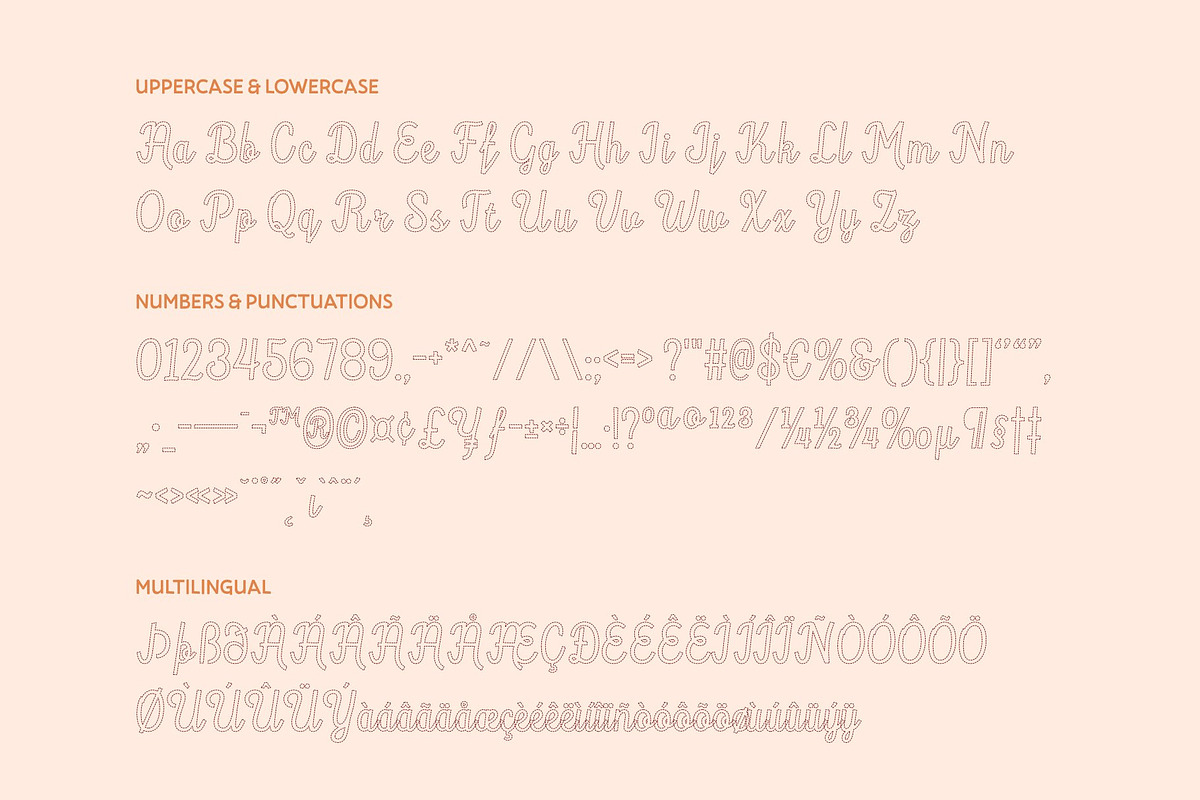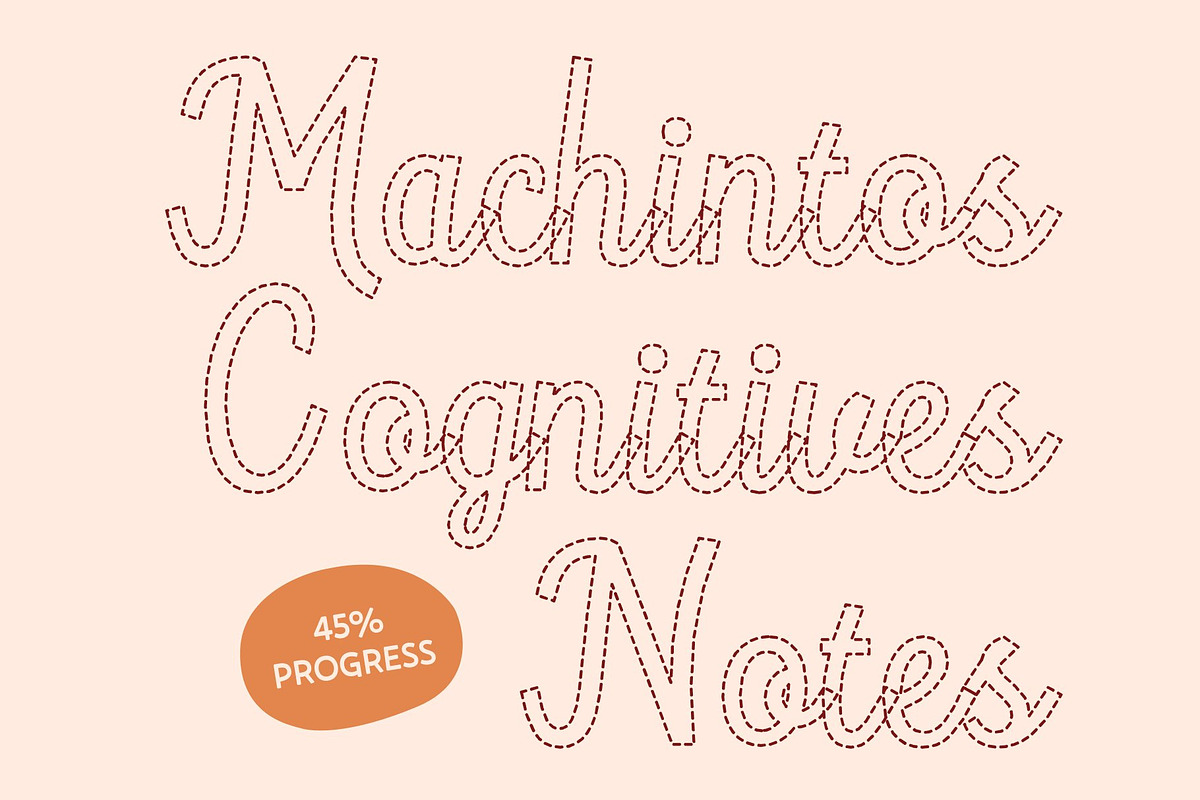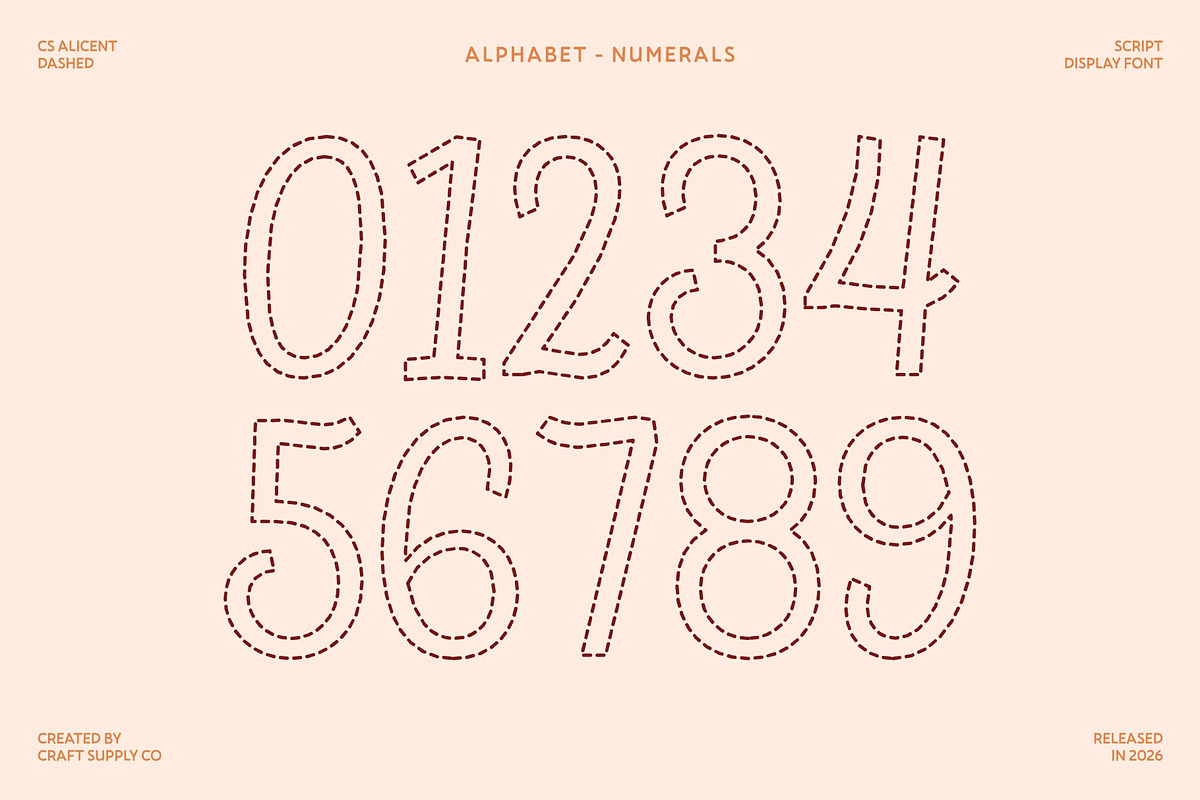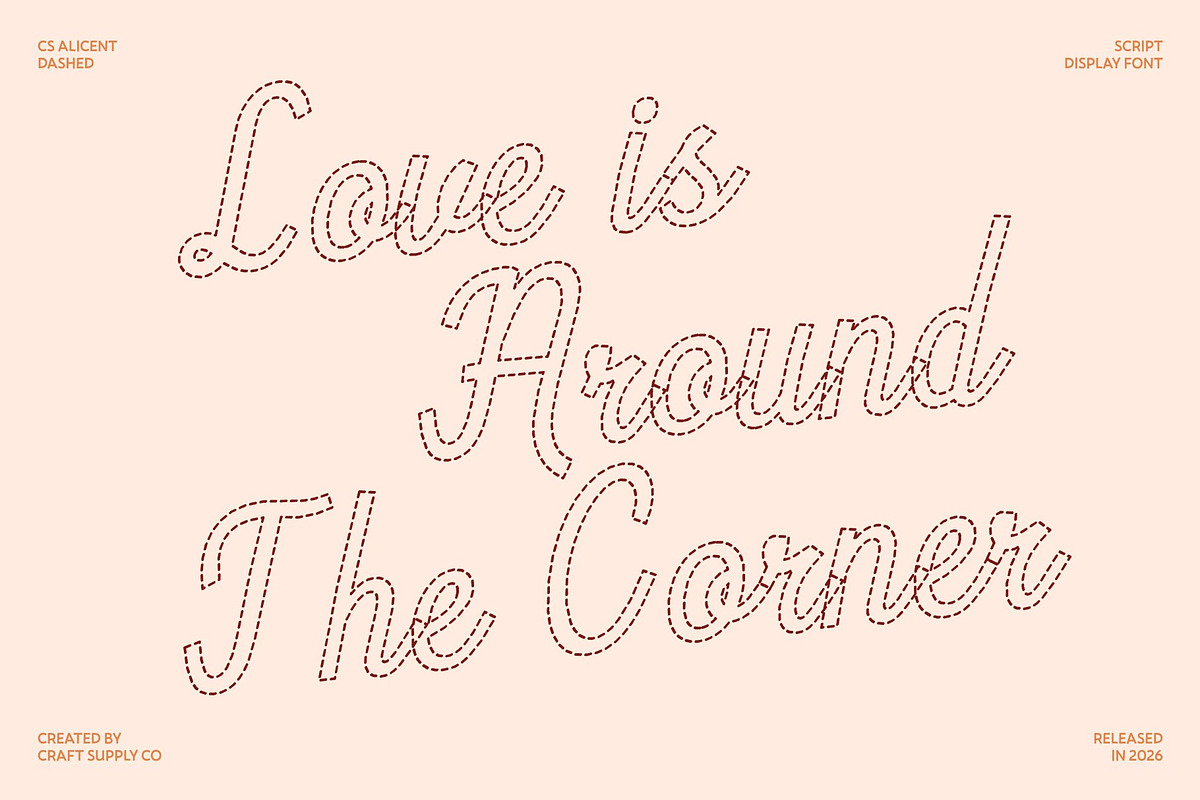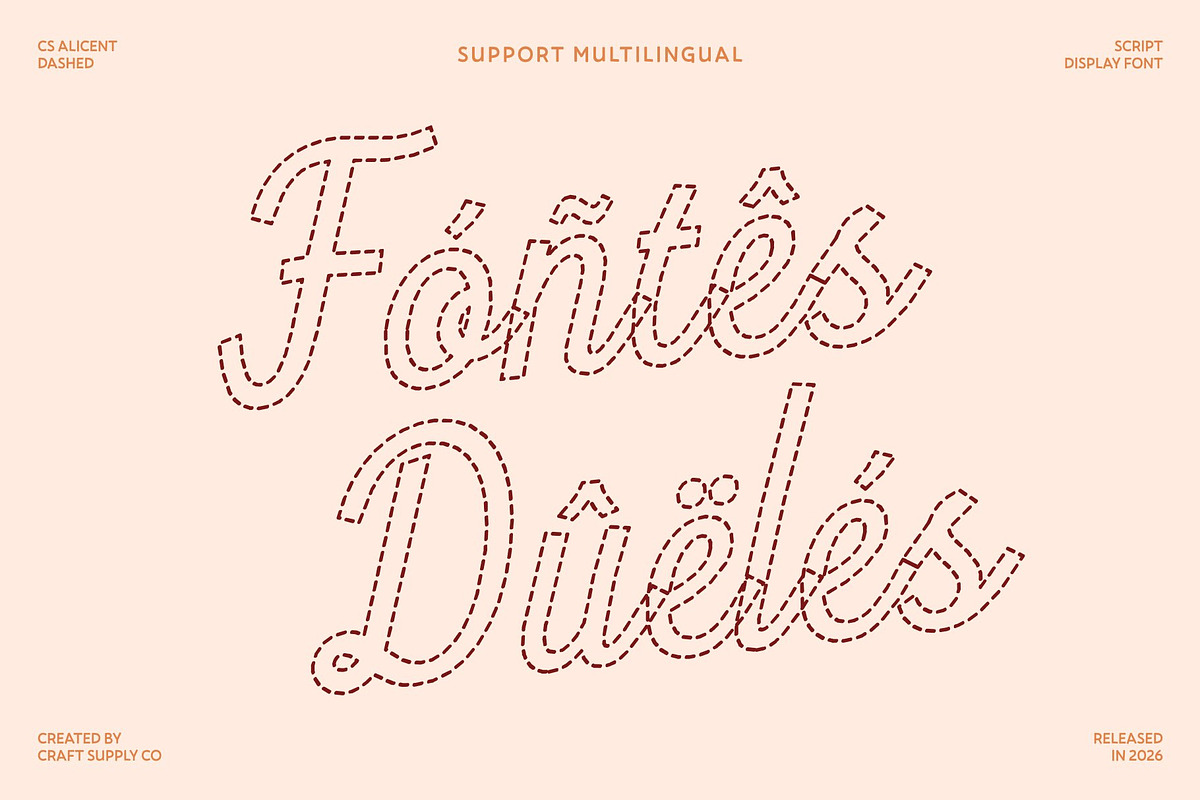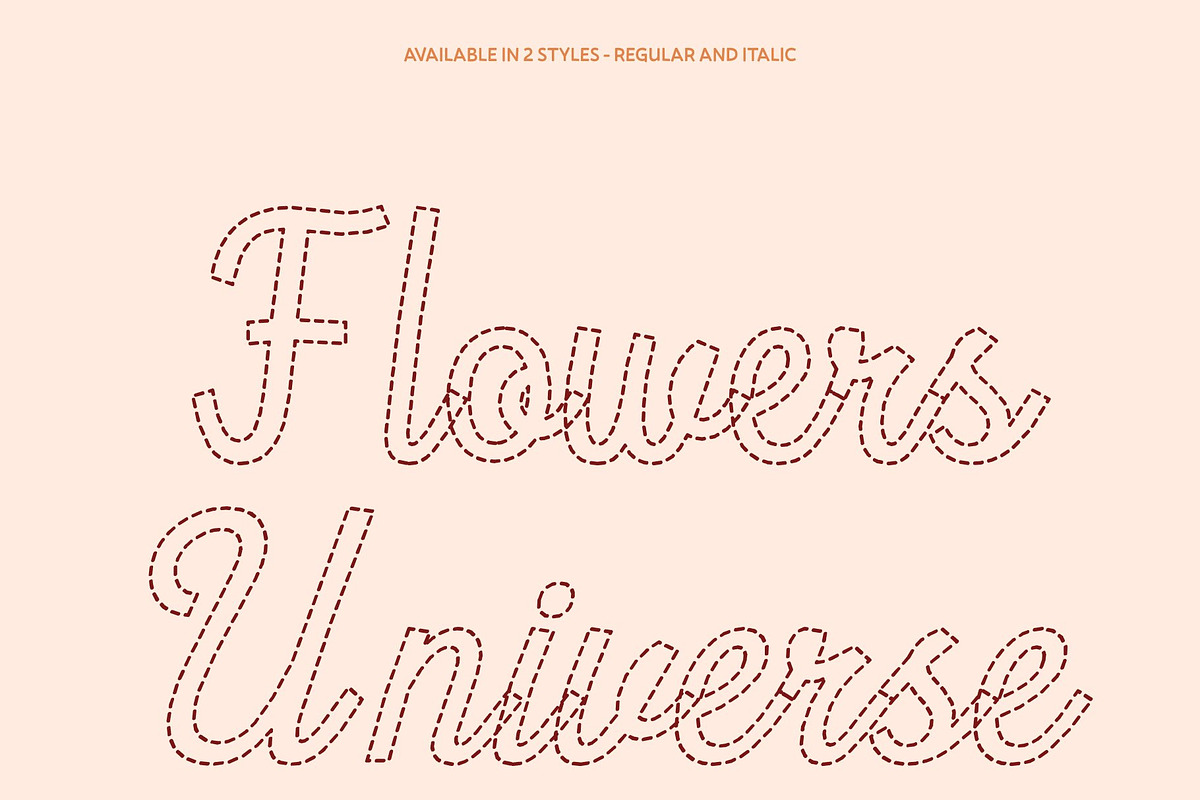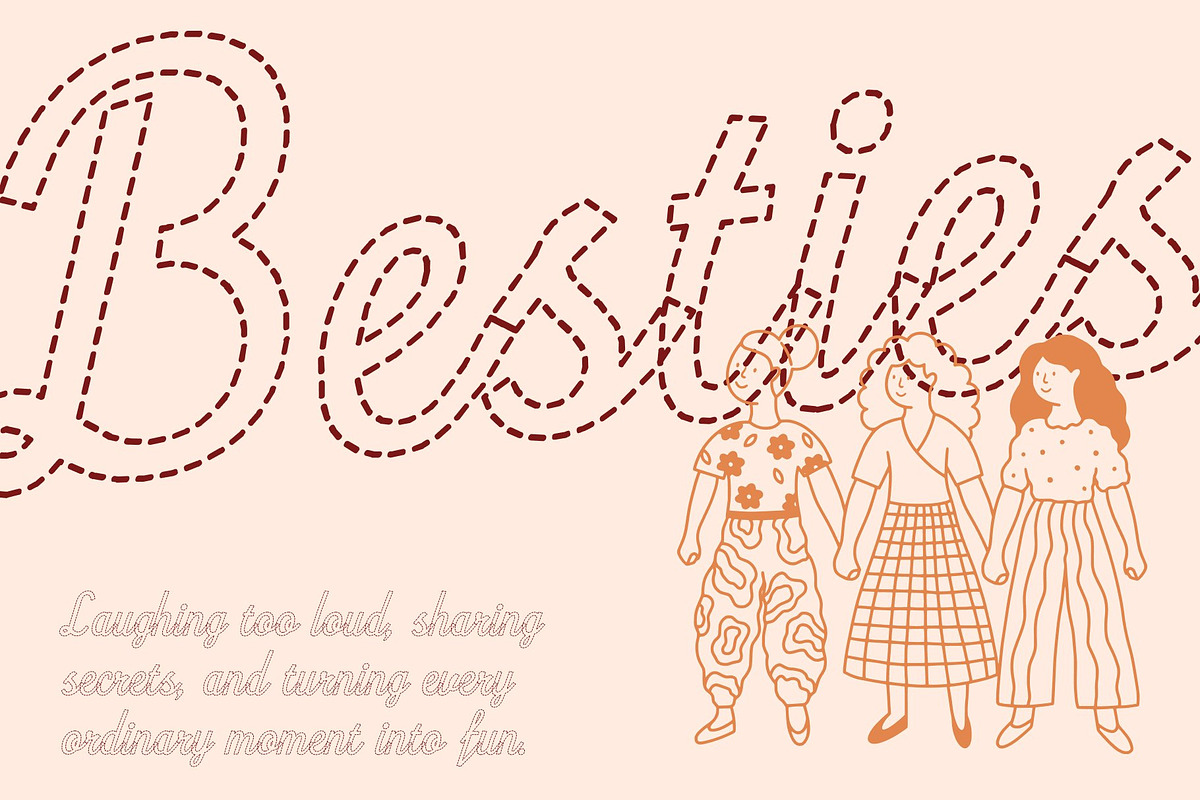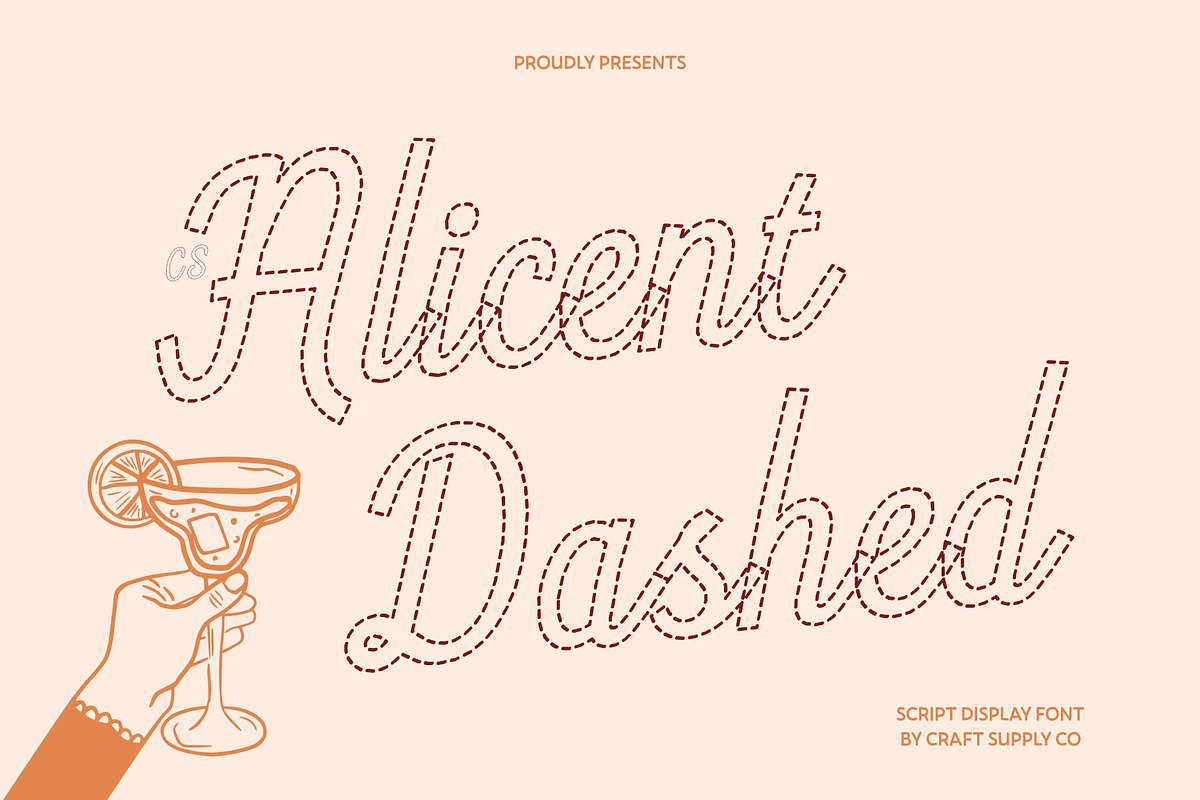
CS Alicent Dashed
CS Alicent Dashed – Script Font: Graceful Beauty in Every Stroke
Natural Flow with Airy Dashed Elegance This is a modern script font crafted with a flowing handwritten style that feels both organic and sophisticated. Its smooth connections are enhanced by a distinctive dashed construction each stroke formed from delicate, broken segments instead of solid lines. This creates a light, airy texture that adds a refined artistic touch while maintaining a seamless visual rhythm.
Feminine, Soft, and Creatively Expressive The gentle curves and balanced proportions give a distinctly feminine and aesthetic appeal. The segmented strokes introduce subtle movement and softness, enhancing the handwritten feel with a relaxed, creative character. The result is a script that feels warm, graceful, and emotionally engaging without losing clarity.
Elegant Style for Beauty and Lifestyle Design With its soft and polished appearance, this is ideal for beauty branding, skincare packaging, lifestyle visuals, and fashion-related projects. The dashed detailing adds a modern decorative nuance, elevating the overall elegance while keeping the design approachable and refined.
Versatile for Invitations, Branding, and Editorial Use From wedding invitations and luxury packaging to editorial layouts and logo design, this font adapts effortlessly. Its graceful letterforms and airy dashed strokes ensure readability while adding distinctive charm making it a perfect choice for projects that seek a balance of handwritten authenticity, modern sophistication, and creative expression.
CS Alicent Dashed Regular
CS Alicent Dashed Italic